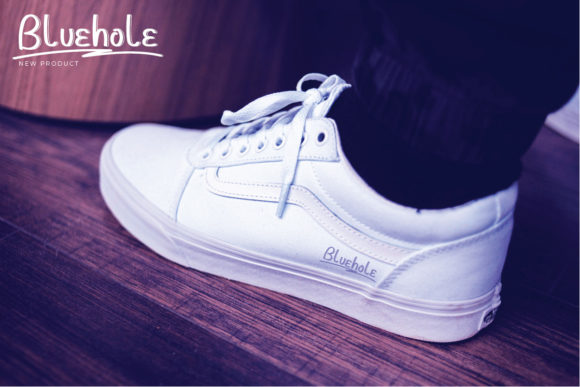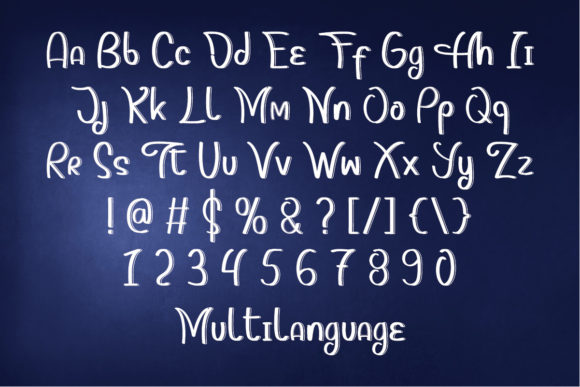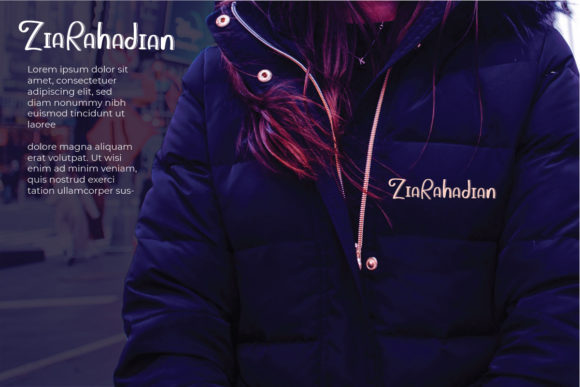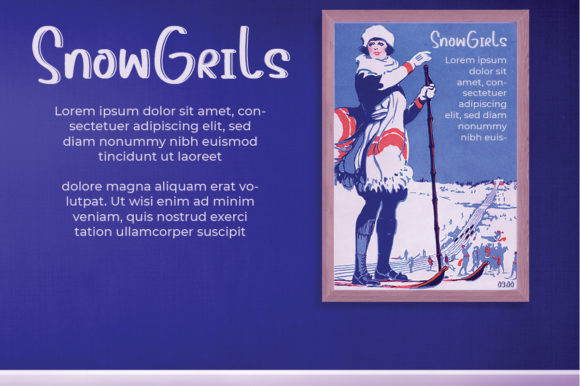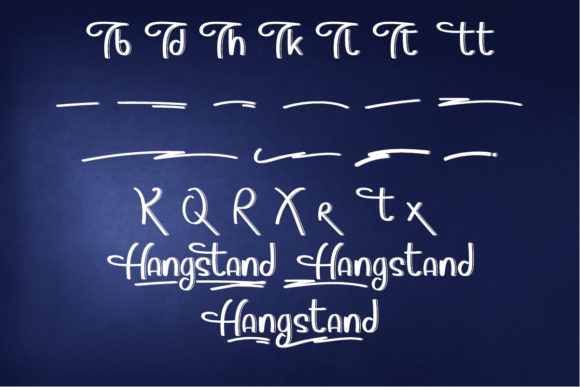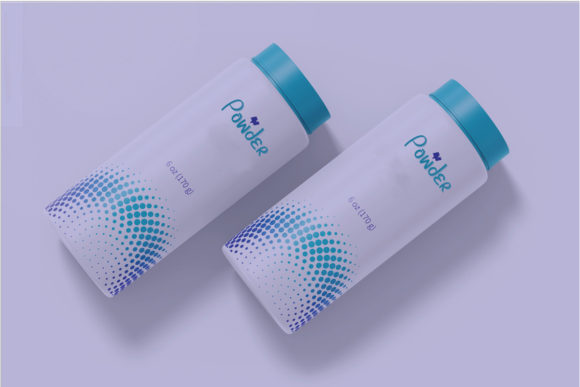
Introducing Hangstand Font: Elevate Your Designs with Vintage Elegance
In the world of typography, a well-crafted font can make all the difference in elevating your design to the next level. For designers and crafters seeking a touch of vintage sophistication, Hangstand Font is an exceptional choice. This beautiful, well-balanced script font is defined by smooth curves, making it perfect for fashion branding, editorial designs, and a wide range of creative projects.
The Beauty of Hangstand Font
Hangstand Font boasts a unique, vintage style that instantly adds a level of elegance and refinement to any design. Its smooth curves and flowing lines create a sense of movement and fluidity, making it ideal for designs that require a touch of sophistication. Whether you’re working on a fashion brand, editorial piece, or craft project, Hangstand Font is sure to make a lasting impression.
Key Features of Hangstand Font
• Vintage Style: Hangstand Font’s vintage style is reminiscent of classic typography, making it perfect for designs that require a touch of nostalgia and elegance.
• Smooth Curves: The font’s smooth curves create a sense of fluidity and movement, making it ideal for designs that require a dynamic feel.
• PUA Encoded: Hangstand Font is PUA encoded, which means you can access all glyphs and swashes with ease. This feature makes it simple to customize your designs and add a personal touch.
• Well-Balanced: The font is carefully crafted to ensure that it is well-balanced and visually appealing, making it perfect for a wide range of design applications.
Perfect for Fashion Branding and Editorial Designs
Hangstand Font is particularly well-suited for fashion branding and editorial designs. Its vintage style and smooth curves evoke a sense of luxury and sophistication, making it perfect for high-end fashion brands, editorial pieces, and lifestyle publications. The font’s elegance and refinement also make it an excellent choice for craft projects, such as handmade cards, invitations, and DIY crafts.
Tips for Using Hangstand Font
To get the most out of Hangstand Font, here are a few tips to keep in mind:
• Use it as a headline font: Hangstand Font’s vintage style and smooth curves make it perfect for use as a headline font. Its elegance and refinement will instantly elevate your design and grab the viewer’s attention.
• Pair it with a sans-serif font: For body text, consider pairing Hangstand Font with a clean sans-serif font. This will create a beautiful contrast between the elegant script font and the clean, modern sans-serif font.
• Experiment with swashes and glyphs: With Hangstand Font’s PUA encoding, you can access a wide range of swashes and glyphs. Experiment with different combinations to add a personal touch to your designs.
Hangstand Font is a beautiful, well-balanced script font that is perfect for designers and crafters seeking a touch of vintage elegance. Its smooth curves, vintage style, and PUA encoding make it an excellent choice for fashion branding, editorial designs, and a wide range of creative projects. With its ease of use and versatility, Hangstand Font is sure to become a staple in your design toolkit.